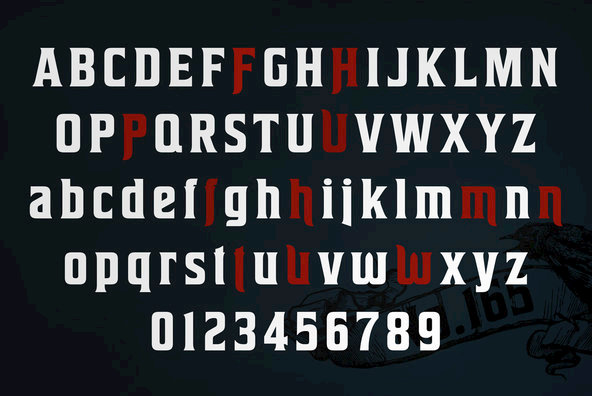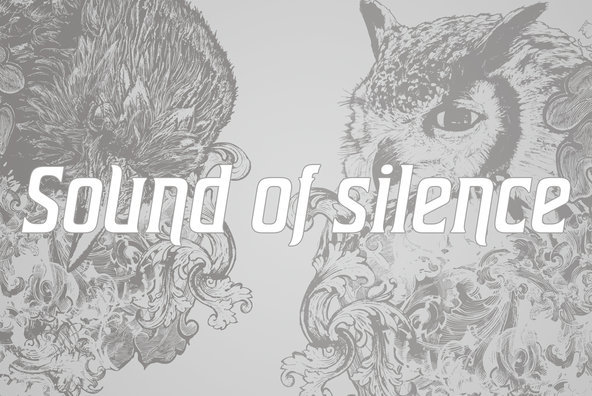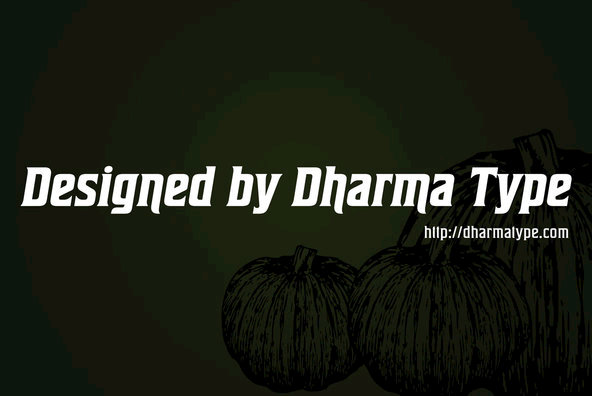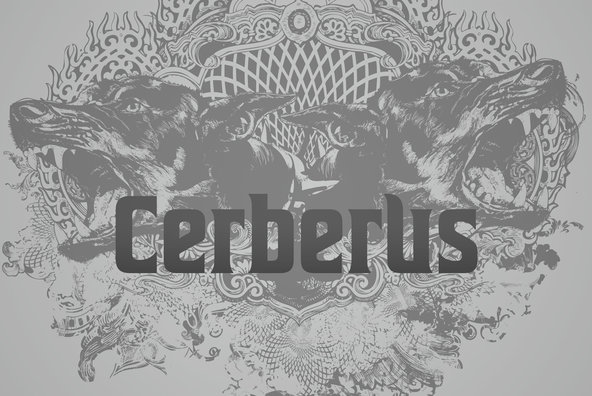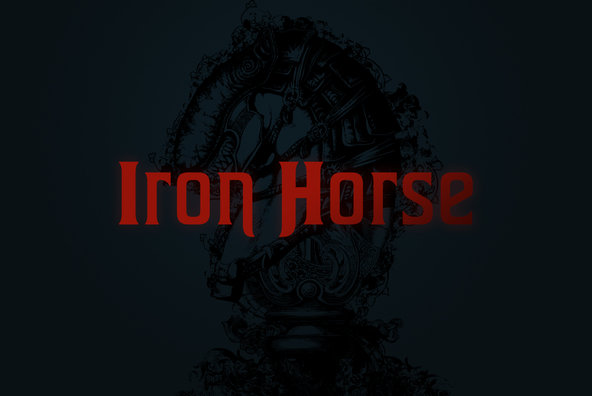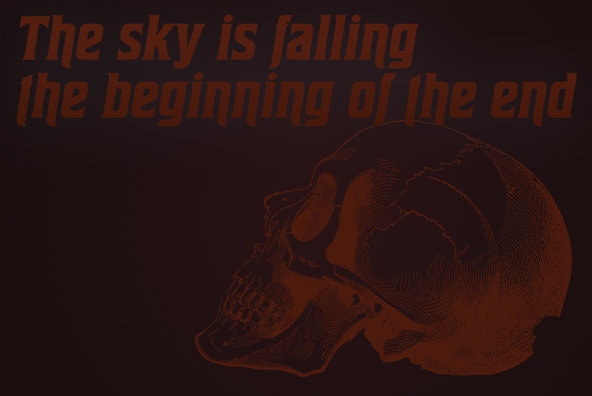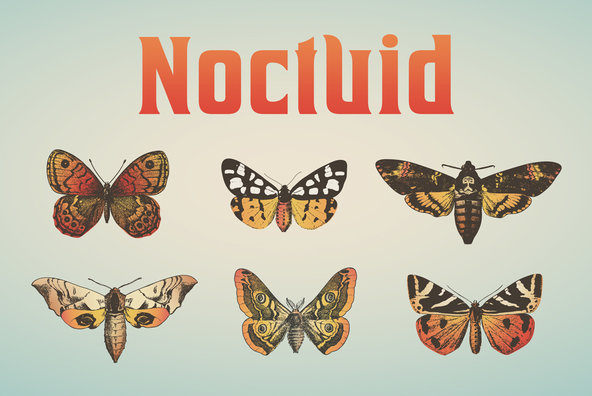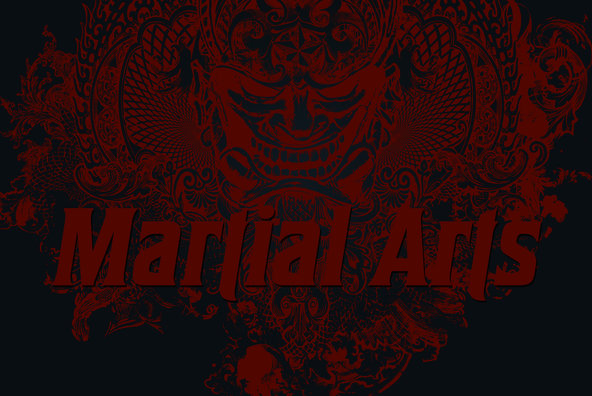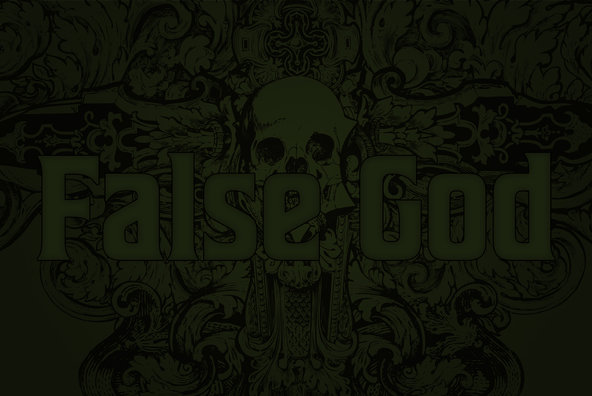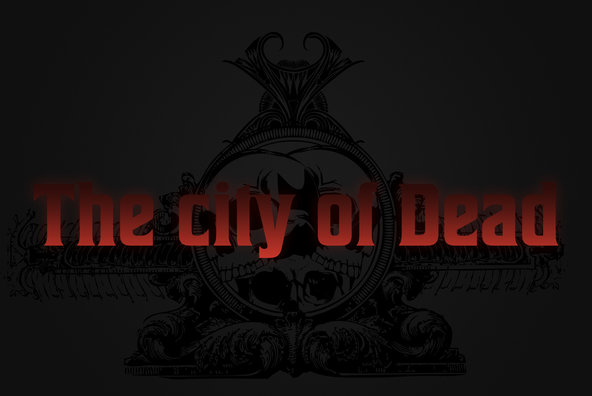
House of Cards
Foundry: Ryoichi Tsunekawa
House of cards is inspired by and based on retro Hamilton s Teniers typeface which is popular wooden type fonts of the 19th century. To make natural and contemporary impressions the original lowercase design was slightly changed from the original but all glyphs had been designed carefully to be retro looking of the old time and to fill all with nostalgia. This modern wood type includes 2 weights and thier matching italic style and all style have sprayed ends (begining) alternates for F H P U f h m n t u and w which can be accessed by using OpenType Stylistic alternates or swash alts. House of cards will be the best solution for posters titles and anywhere you need vintage lettering.